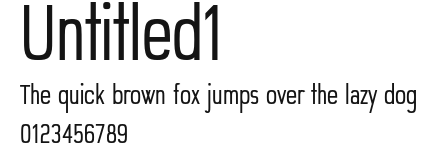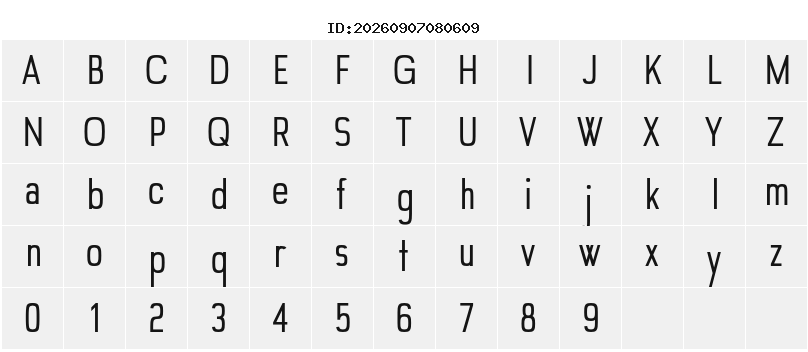
• Font Name: Untitled1
• Full Font Name: Untitled1
About Untitled1.otf
Untitled1.otf is a modern, elegant sans-serif font designed for ultimate readability and visual harmony. Perfect for branding, headlines, web design, and print materials.